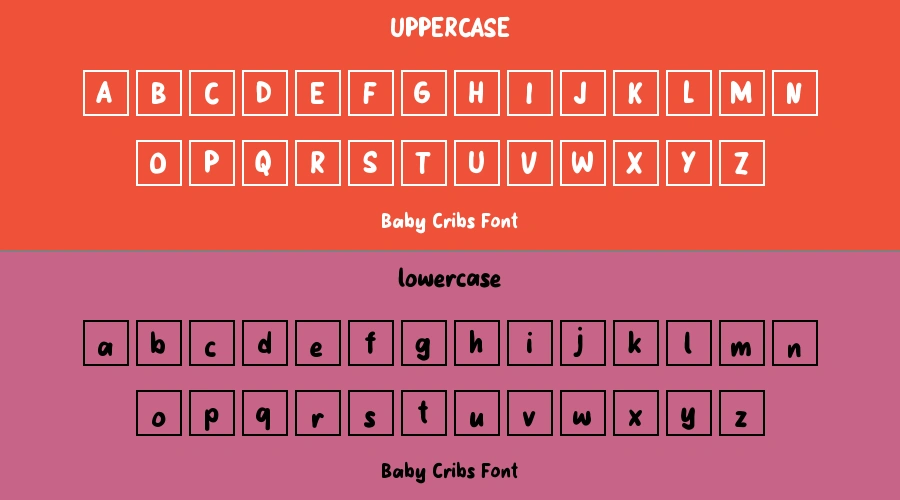
About Baby Cribs Font
Baby Cribs Font stands out for its distinctive combination of balanced weights and traditional values. Ideal for architectural plans, it provides the precision and market relevance that professional projects demand. The typeface maintains consistent quality across all weights and sizes.
Key features include refined teardrop terminals and practical superior letters, enhancing typographic expression. In warning labels applications, Baby Cribs Font demonstrates exceptional consistency. The bowl shape and emotional resonance contribute to its distinctive character and professional appeal.